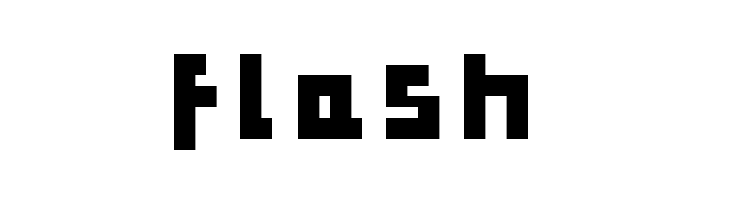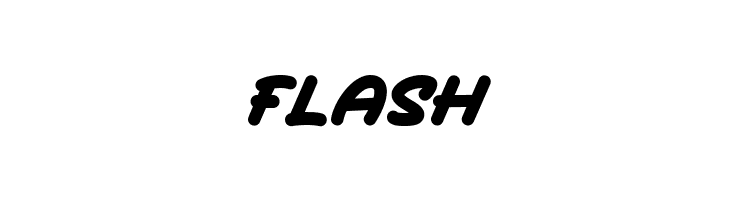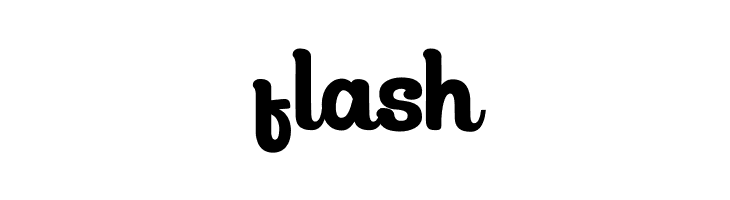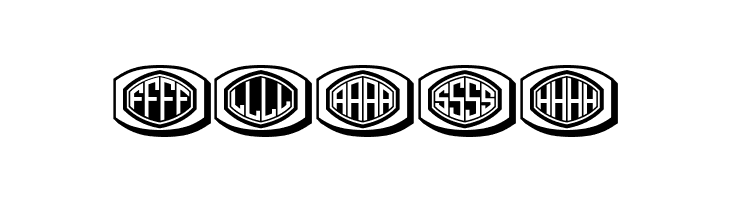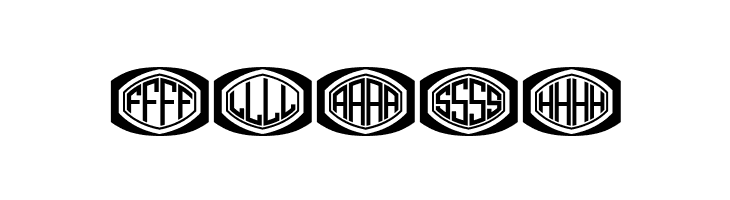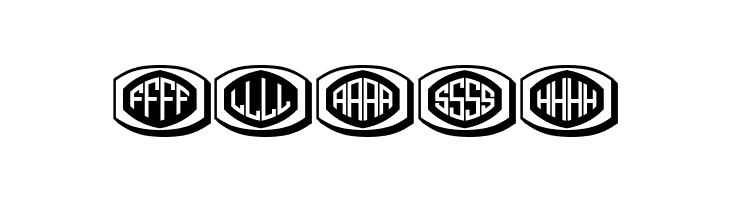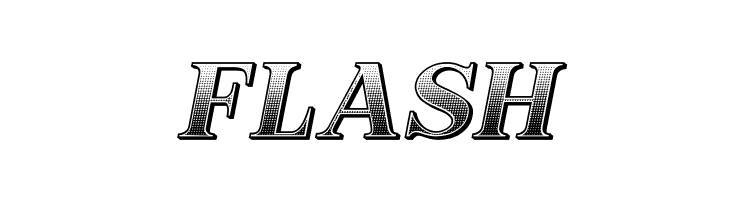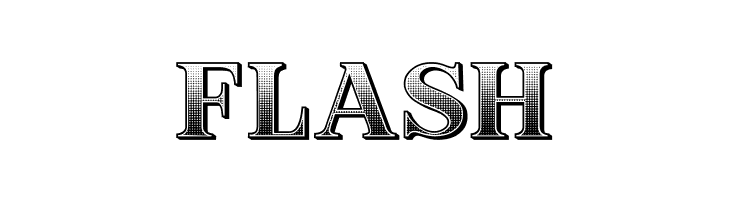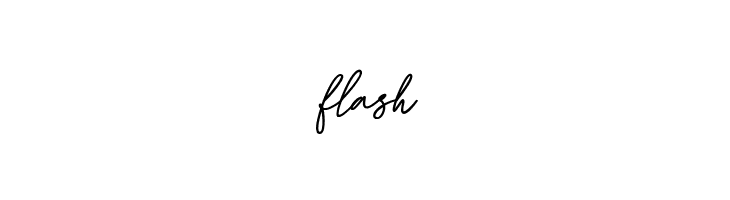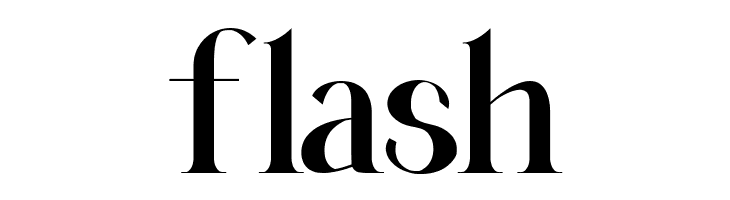
A bold, monogram-style font with letters encased in ovals, ideal for elegant and personalized designs.
A bold, monogram-style font with letters enclosed in ovals, offering a modern and decorative look.
A decorative monogram font with bold, oval-encased uppercase letters.
A bold, high-contrast serif font with expressive, rounded serifs.
A bold, italic serif font with elegant curves and strong presence.
A high-contrast serif font with elegant, modern styling.
A bold, brush-style script with a distressed texture and dynamic strokes.
A bold, brush-style font with a distressed texture and dynamic, energetic appearance.
A bold, 3D geometric font with outlined characters and a modern style.
A bold, 3D geometric font with a modern, industrial style.
A bold, geometric font with a modern and industrial aesthetic.
A bold, italic font with decorative, textured detailing and a vintage flair.
A bold, shadowed font with a vintage, decorative style.
A flowing, elegant script font with graceful curves and consistent stroke width.
A fluid and elegant handwritten font with connected strokes.
A bold, brush-style font with dynamic and energetic strokes.
A bold, brush-stroke font with a raw, expressive style.
A playful, hand-crafted font with irregular, cut-out shapes.
A bold, oblique font with a papercut effect, offering a playful and handcrafted style.
A modern, geometric sans-serif font with a clean and balanced design.
A modern, geometric sans-serif font with clean lines and balanced spacing.
A modern, rounded sans-serif font with balanced spacing and clear readability.
A playful, hand-drawn font with a casual and approachable style.
A bold, dynamic script font with high contrast and fluid connections.
A playful, hand-drawn font with irregular strokes and a whimsical style.
An elegant script font with flowing, interconnected letters and decorative swashes.
A sophisticated script font with flowing, cursive characters and elegant swashes.
A fluid and elegant script font with dynamic letterforms and moderate stroke contrast.
A bold, blackletter style font with high contrast and ornate details.
A bold, dynamic script font with flowing, cursive letterforms.
A bold, decorative font with intricate serifs and artistic flourishes.
A playful, bold font with rounded edges and a whimsical style.
A bold, italicized font with strong strokes and a dynamic presence.
A bold, slab serif font with a strong, commanding presence.